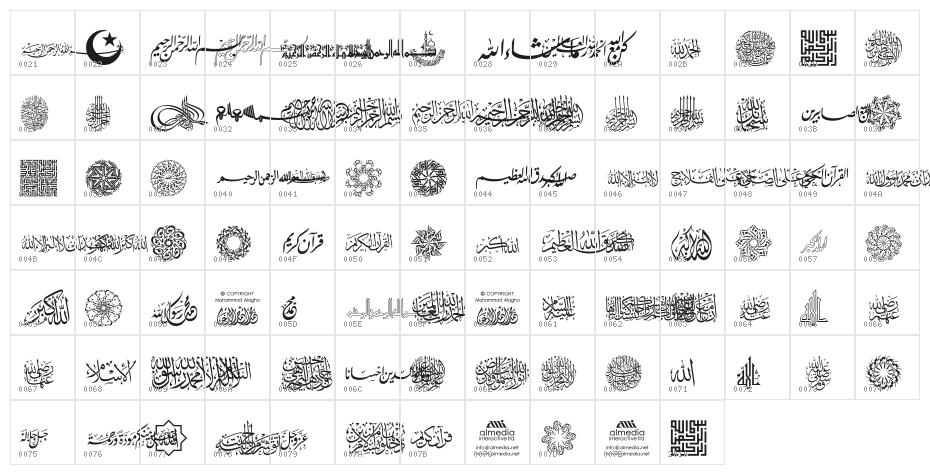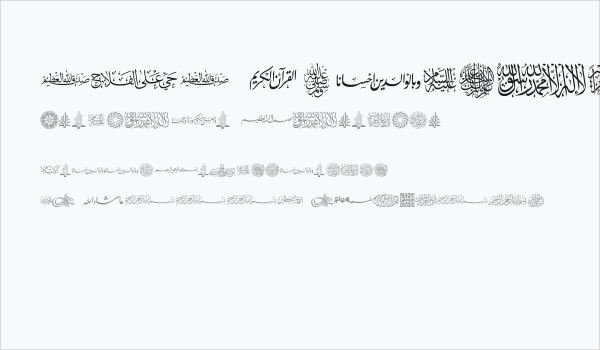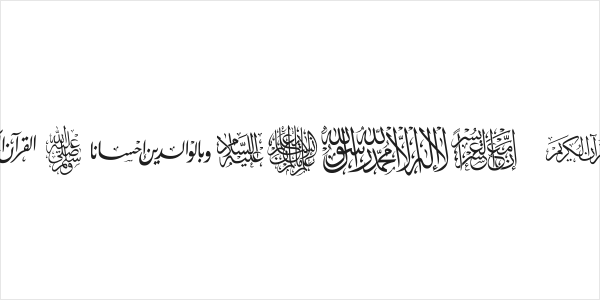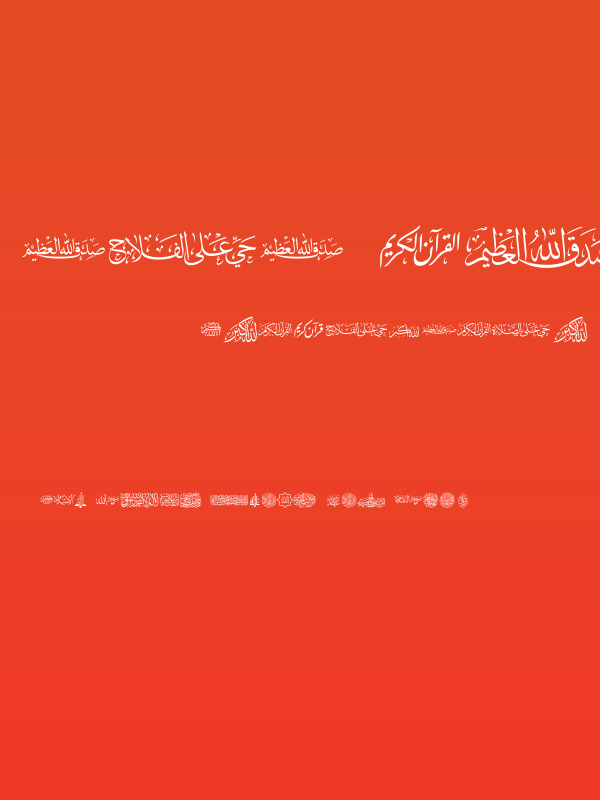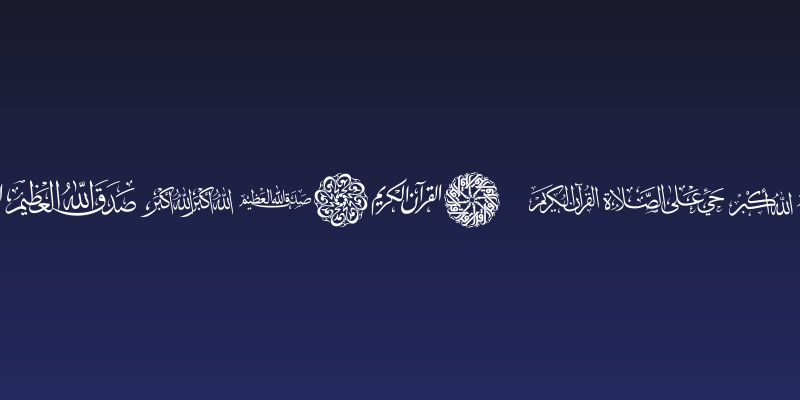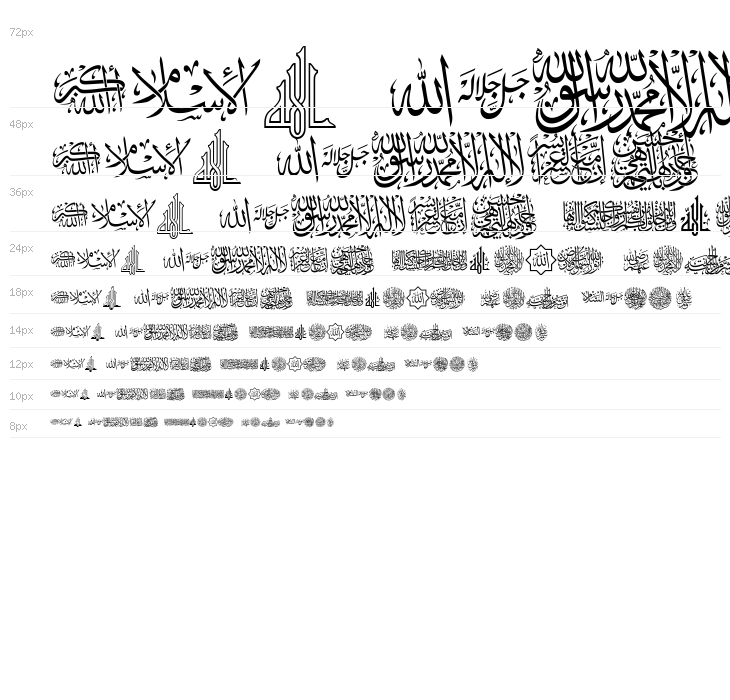
AGA Islamic Phrases Font
AGA Islamic Phrases Description
Highly decorative Arabic script featuring intricate calligraphic flourishes and ornamental motifs, commonly used for religious phrases and Islamic art. The glyphs are complex, with varying stroke thickness and elaborate ligatures, emphasizing traditional calligraphy styles.
| Overall Style | Decorative, Traditional, Religious |
| Use Case | Display, Religious art, Ceremonial headings |
| Proposed Projects | Islamic art, religious posters, mosque decorations, ceremonial documents, greeting cards for religious holidays. |